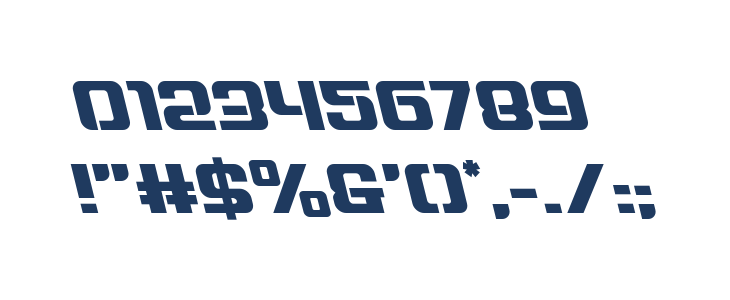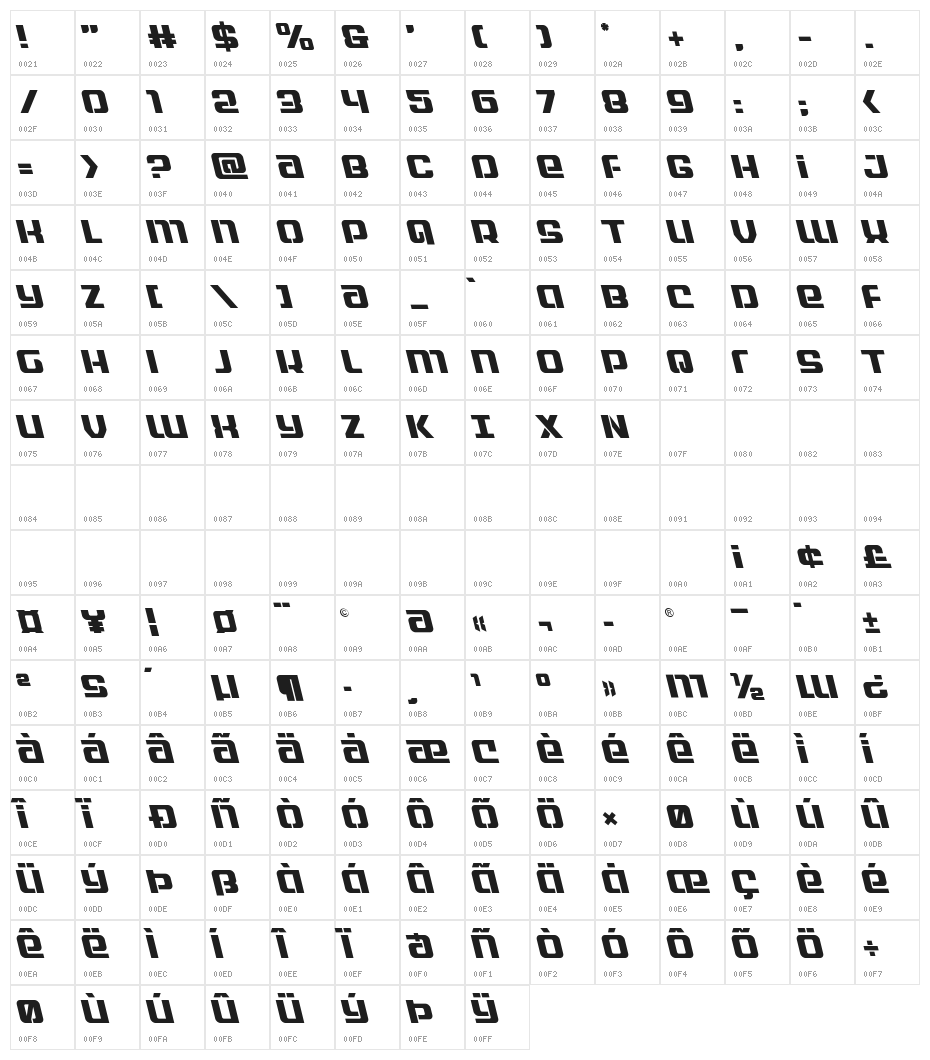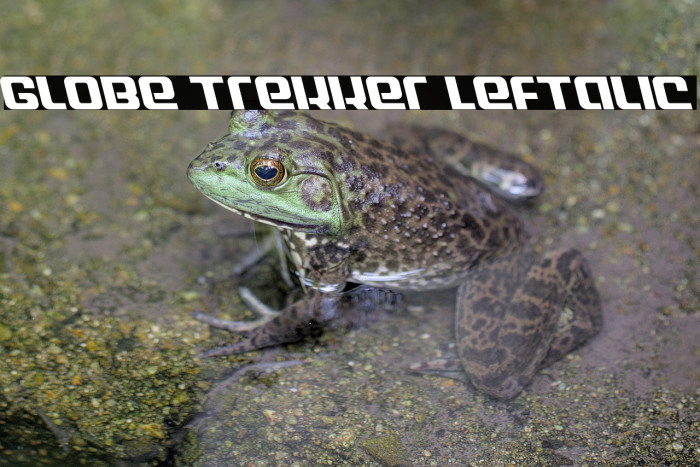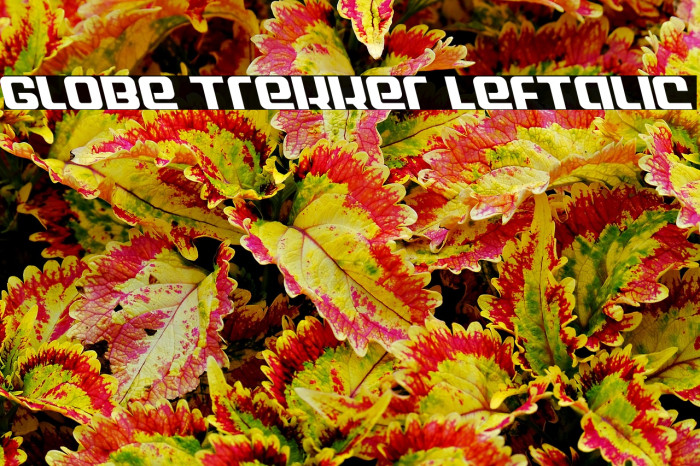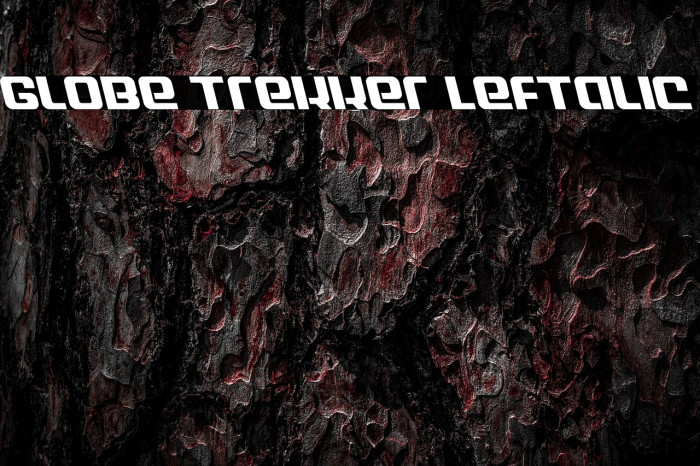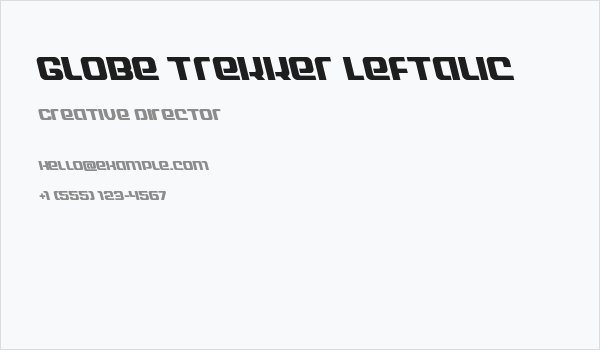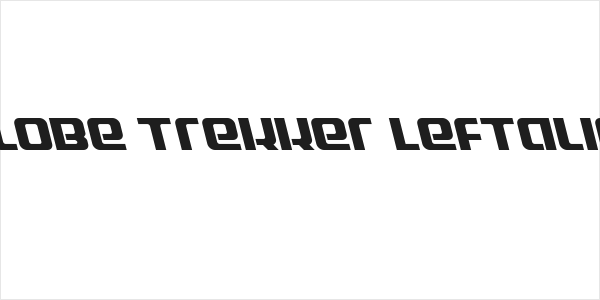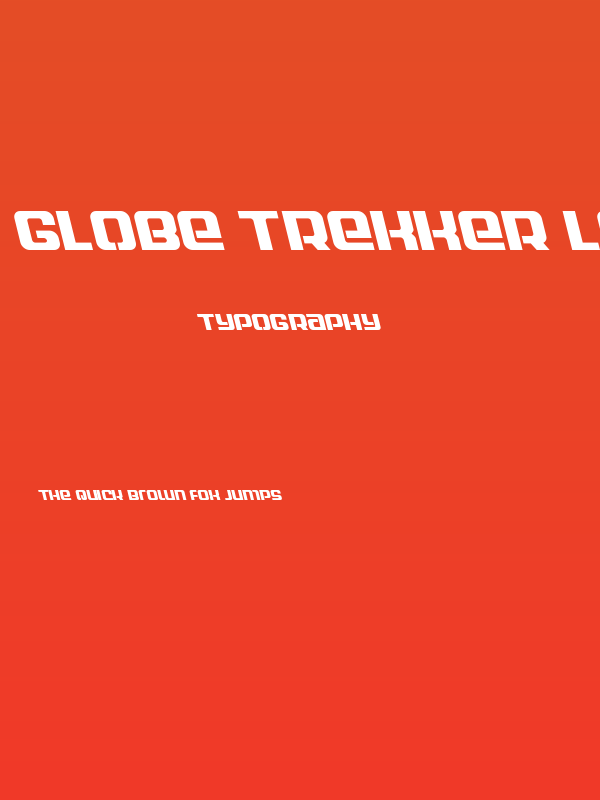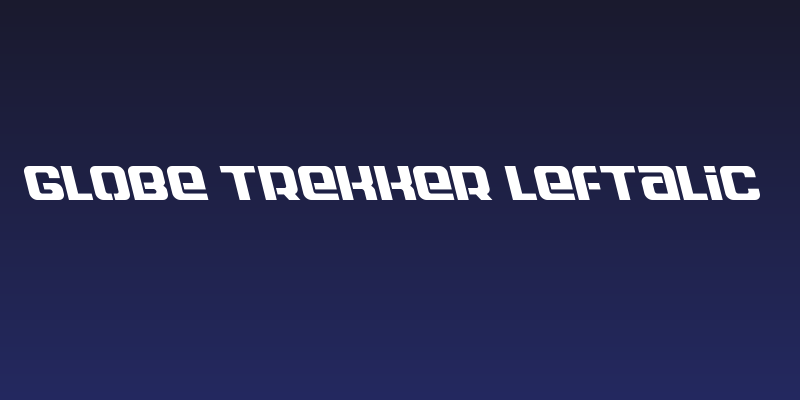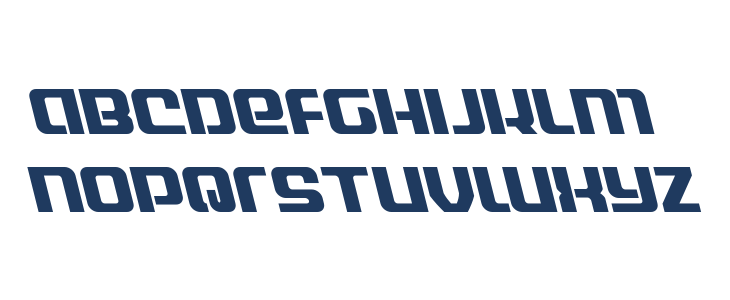
Globe Trekker Leftalic Font
Globe Trekker Leftalic Description
This font features a bold, futuristic style with a distinct slant to the left, giving it a dynamic and forward-moving appearance. The characters are wide and blocky, with consistent stroke thickness that conveys strength and stability. The uppercase and lowercase letters maintain a uniform height, enhancing readability while adding a modern touch. The numerals and special characters follow the same design principles, ensuring a cohesive look across all elements. This font's unique style makes it suitable for projects that require a bold statement or a modern, tech-oriented aesthetic.